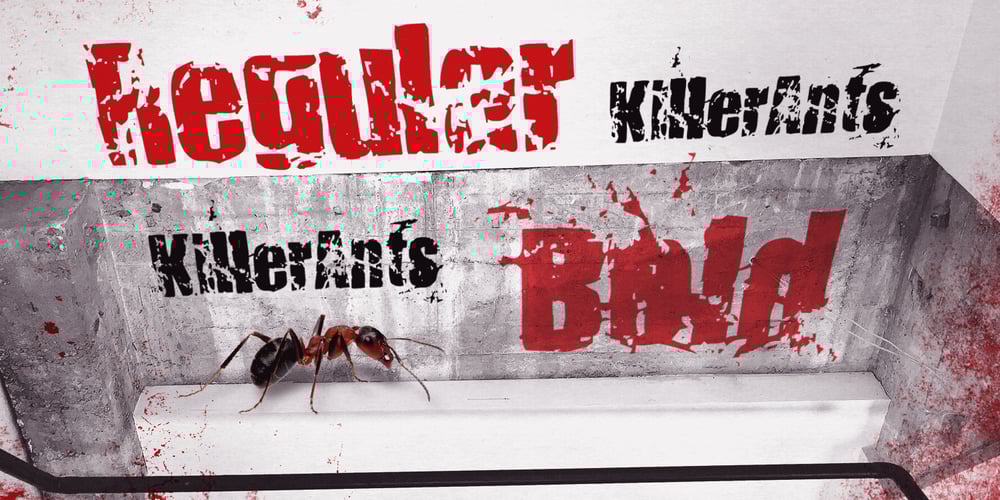
Killer Ants
Killer Ants font
Killer Ants Font Family was designed by Todd Dever and published by Cool Fonts. Killer Ants contains 2 styles and family package options. There are two versions of Killer Ants, regular and bold. Regular is a very cool cracked up looking font that will be great for all kinds of stuff. Bold is on of the most distressed fonts I’ve ever seen – there’s crap everywhere – adjust your leading (line spacing) so the grunge overlaps and you have one awesome effect. Yes, those dots are actually smashed ants. Killer!